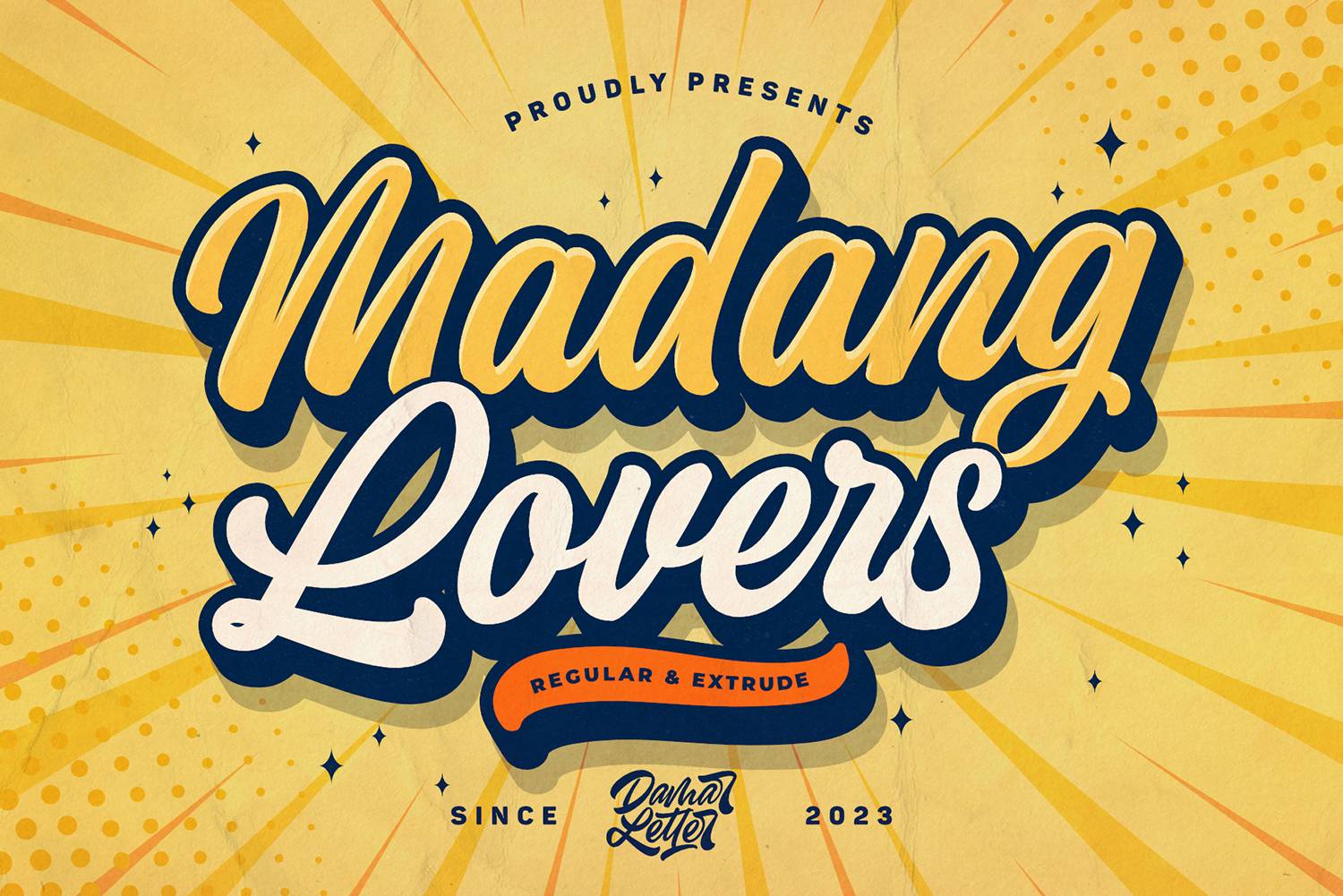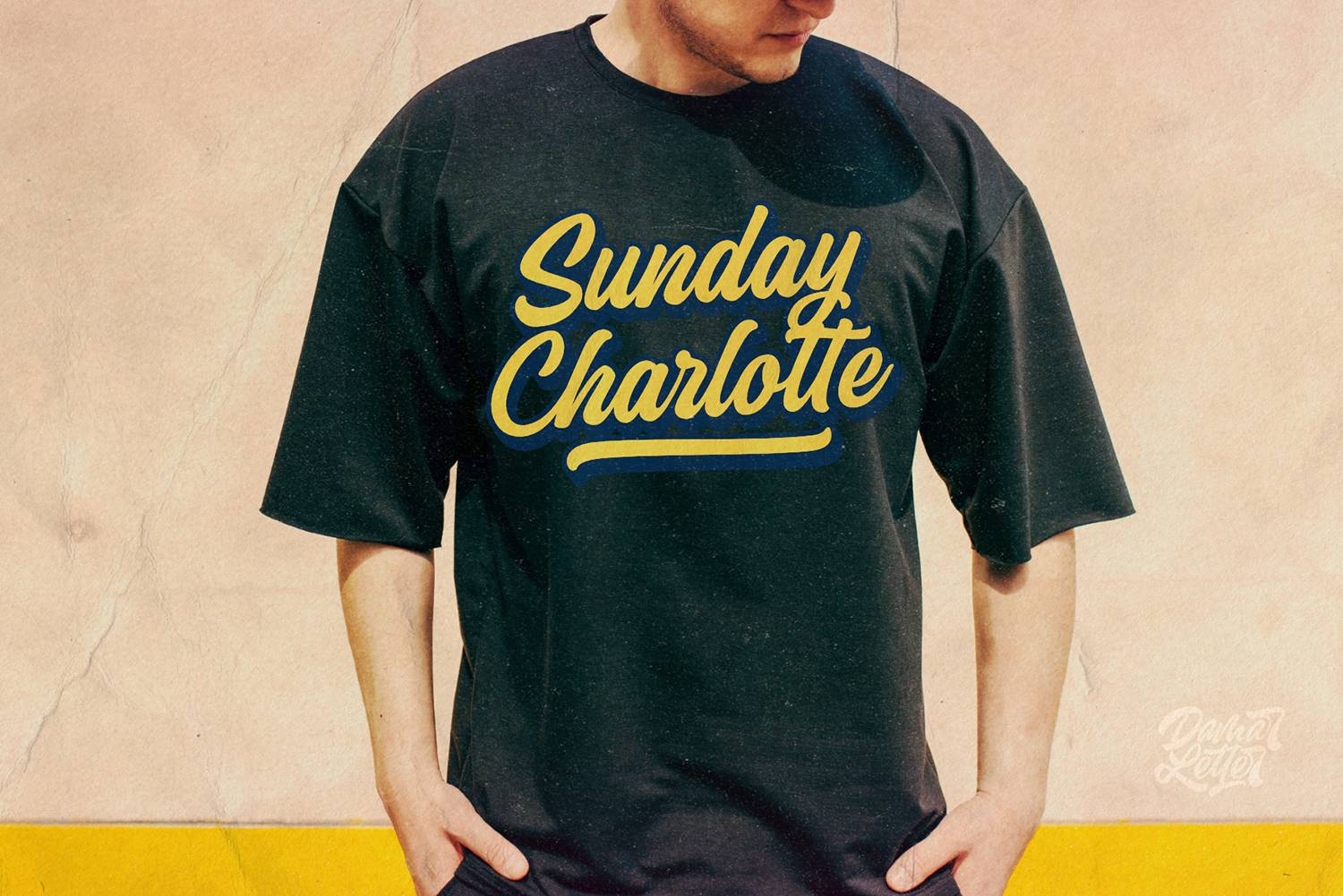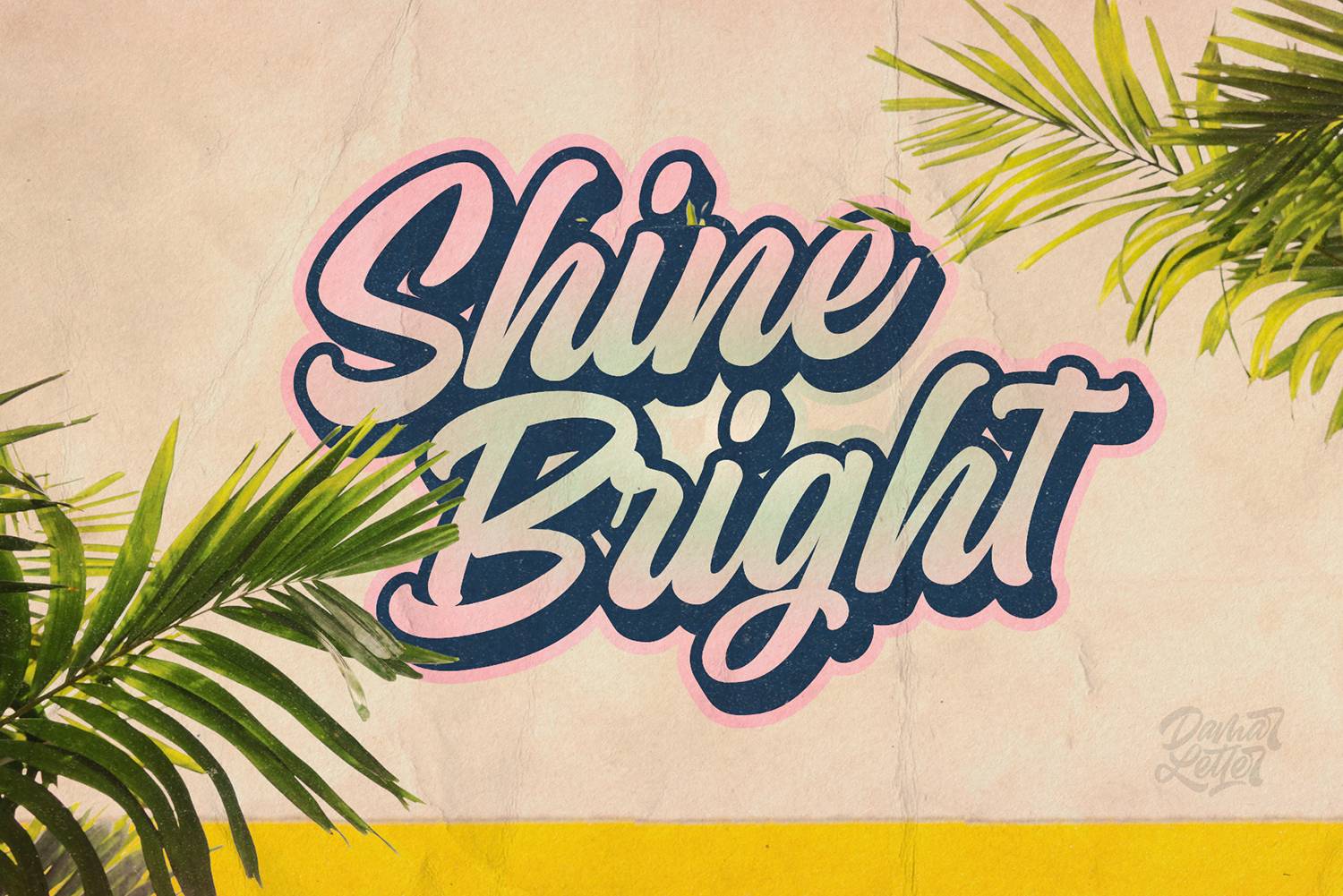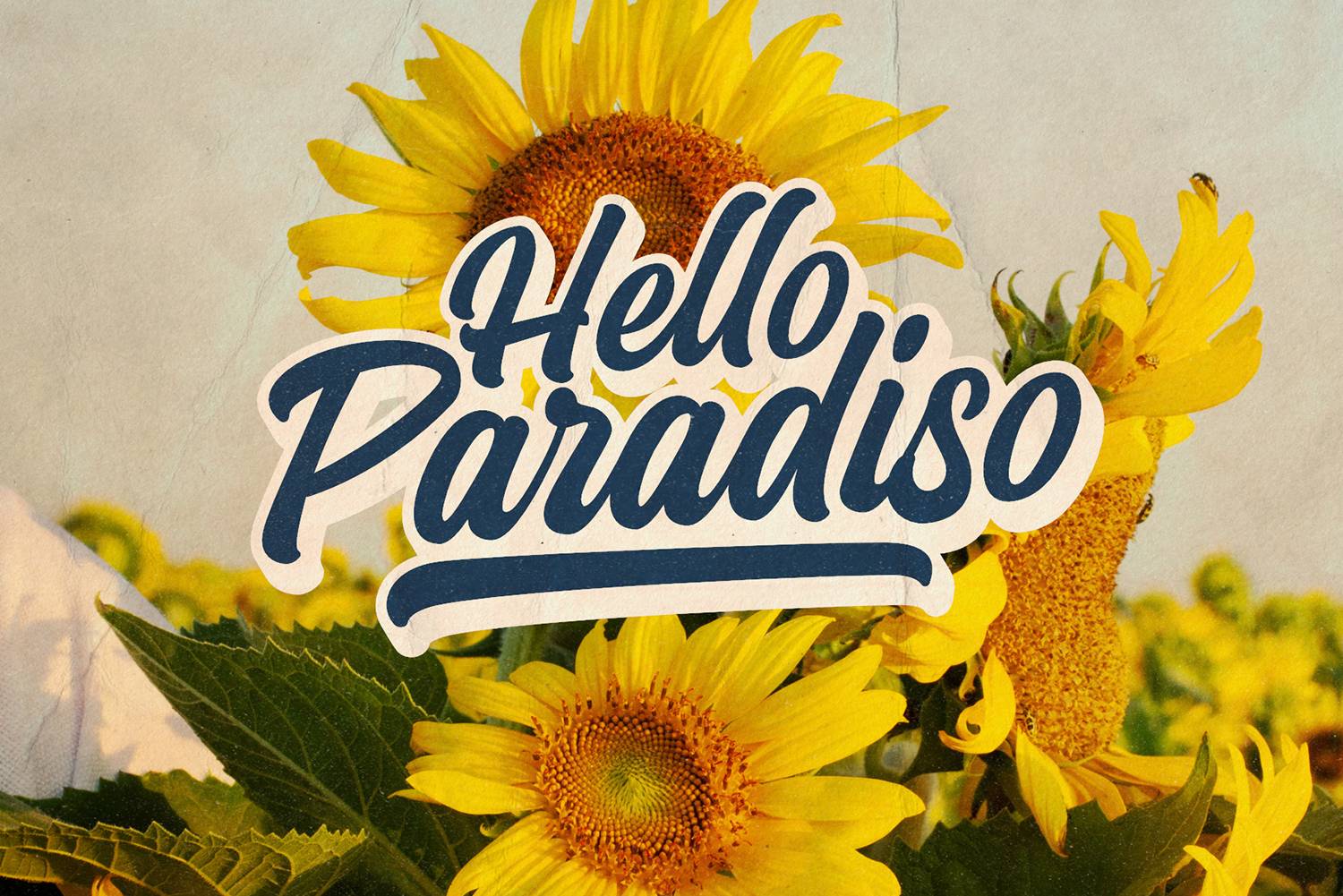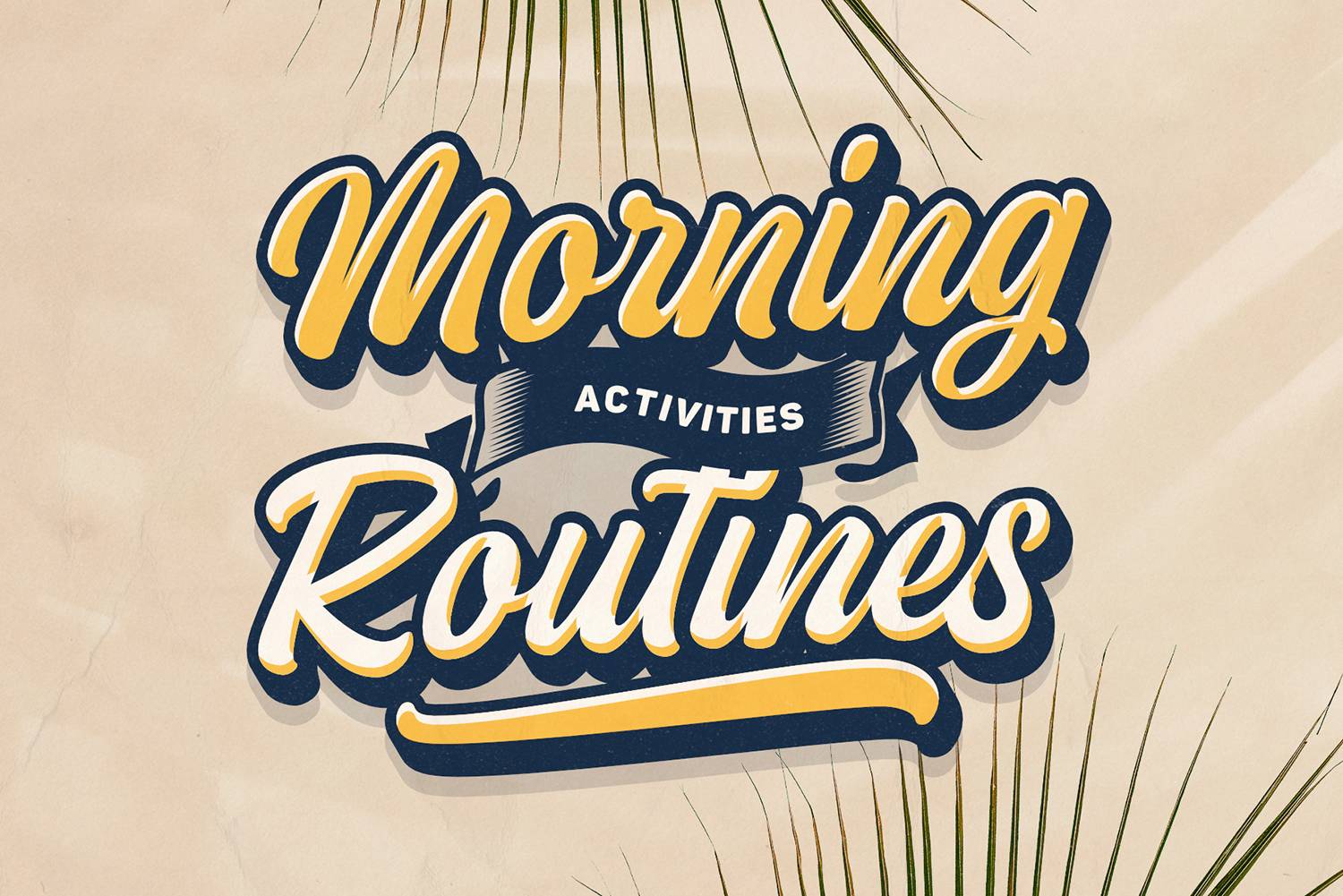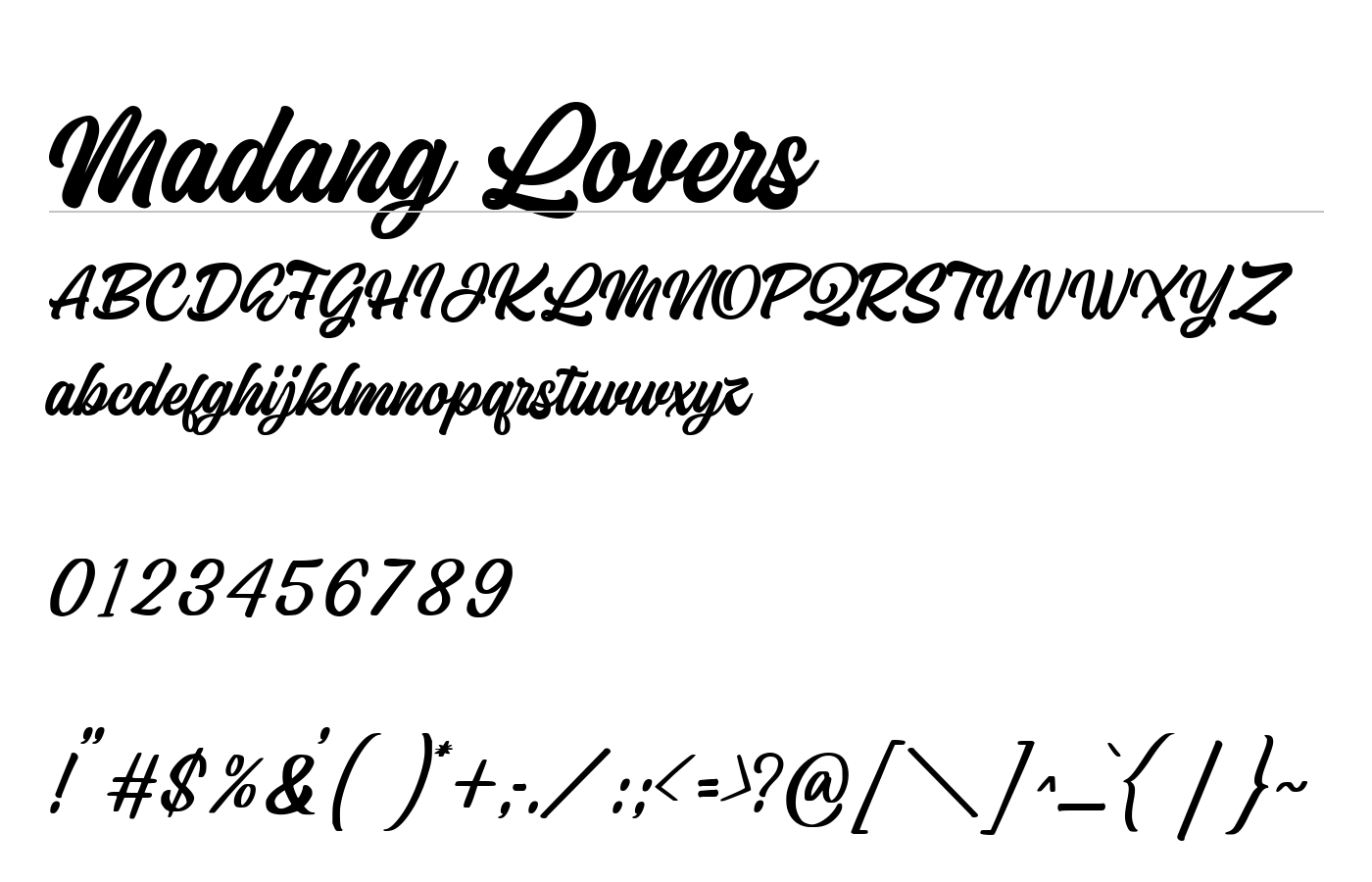
Madang Lovers is a bold, cursive script font with smooth, rounded strokes that create a warm and inviting feel. It features flowing letterforms with a slightly retro vibe, making it perfect for elegant branding, packaging, and headlines where a touch of personality and romance is desired. Its lively style works well for projects that want to convey charm and friendliness while maintaining a polished look.
Madang Lovers Font
About Madang Lovers Font